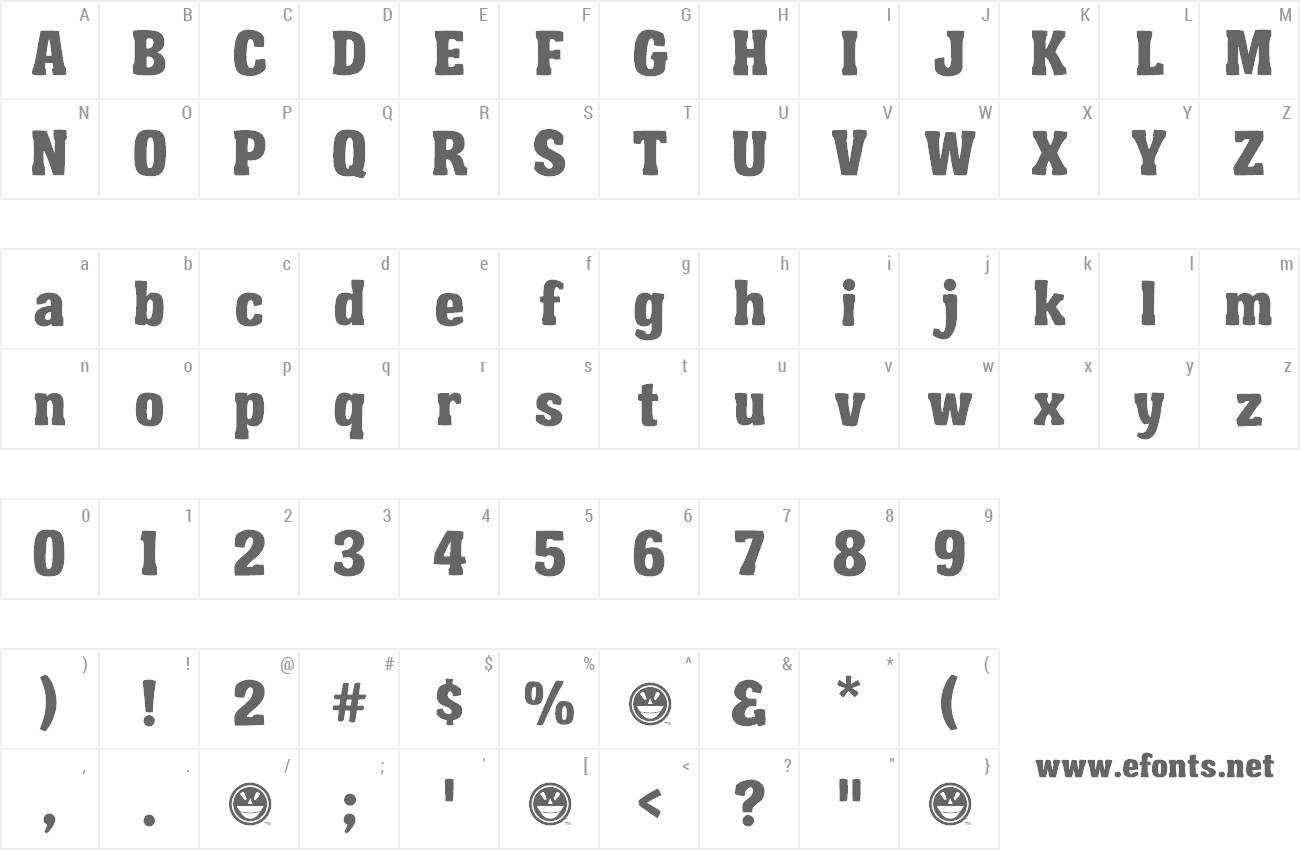
Garishing Worse by Michael G. Adkins Honest font users who use this font commercially are asked to donate no more than $5 USD at paypal.com. Send payment to the_fontry@yahoo.com. A full commercial license is available for $20 when you purchase this font at http://www.myfonts.com/fonts/fontry/fty-garishing-worse/ It does not seem probable that you would ever need another font originating from some questionable distortionary source, and yet some will ultimately click the button and add this face to their already bloating font list. But no matter the number of fonts, few people are upset with the type overload, or as just suggested, "type bloat." This is a limited freeware version, but there is a commercial version to be had, complete with foreign characters and the usual line-up of glyphical villains. There's even support for Central European diacratics, Greek, Hebrew and Cyrillic. No sense leaving entire countries out of the fun. If you do decide to buy Garishing Worse in all its glorious completeness, remember that subsidizing this font will only lead to more fonts just like this one being loosed on a public with hopelessly swollen font lists already garbing up their file managers. And that would be garish beyond comprehension. For more questions about commercial use please feel free to contact us. the_fontry@yahoo.com More... |